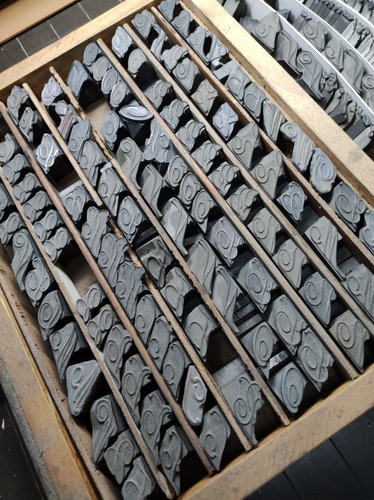
Seifel English Typeface Size 48
Shop Tipografía Inglesa Cpo.48 and more Otros at Latinafy.comDiscover the charm of classic typography with the Seifel English Typeface in Size 48. This exquisite lead type offers a rich and traditional look, perfect for vintage-inspired projects. Ideal for letterpress printing, invitations, and crafts, it delivers impeccable detail and elegance. The used condition adds character and authenticity, making it a unique addition to any designer's toolkit. Experience the timeless appeal of classic design with this exceptional typeface.The Seifel English Typeface in Size 48 is a striking choice for those who appreciate the art of typography. Crafted from lead, this typeface boasts a robust and elegant design, making it a must-have for any printmaker or designer. Its vintage allure is perfect for adding a touch of nostalgia to banners, posters, and prints, allowing you to create standout projects that capture attention and convey a sense of history.
With a used condition, each character tells a story, bringing character and authenticity to your printed material. The typeface is versatile and can be utilized for a wide range of applications, from crafting invitations for special occasions to producing high-quality letterpress prints. The classic English design blends seamlessly with contemporary styles, creating visually stunning results that resonate with a variety of audiences. Elevate your creative work with the timeless beauty of the Seifel English Typeface Size 48.Usage ideas